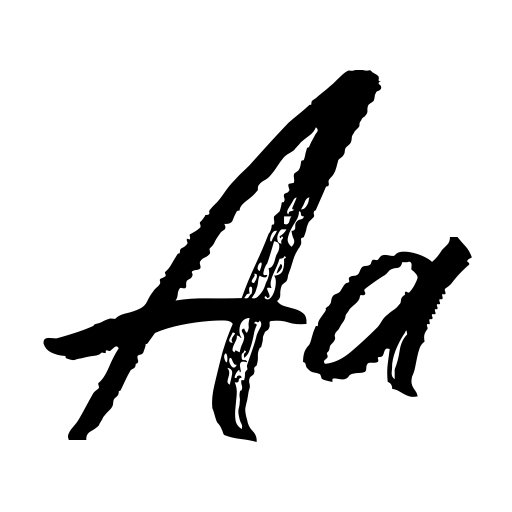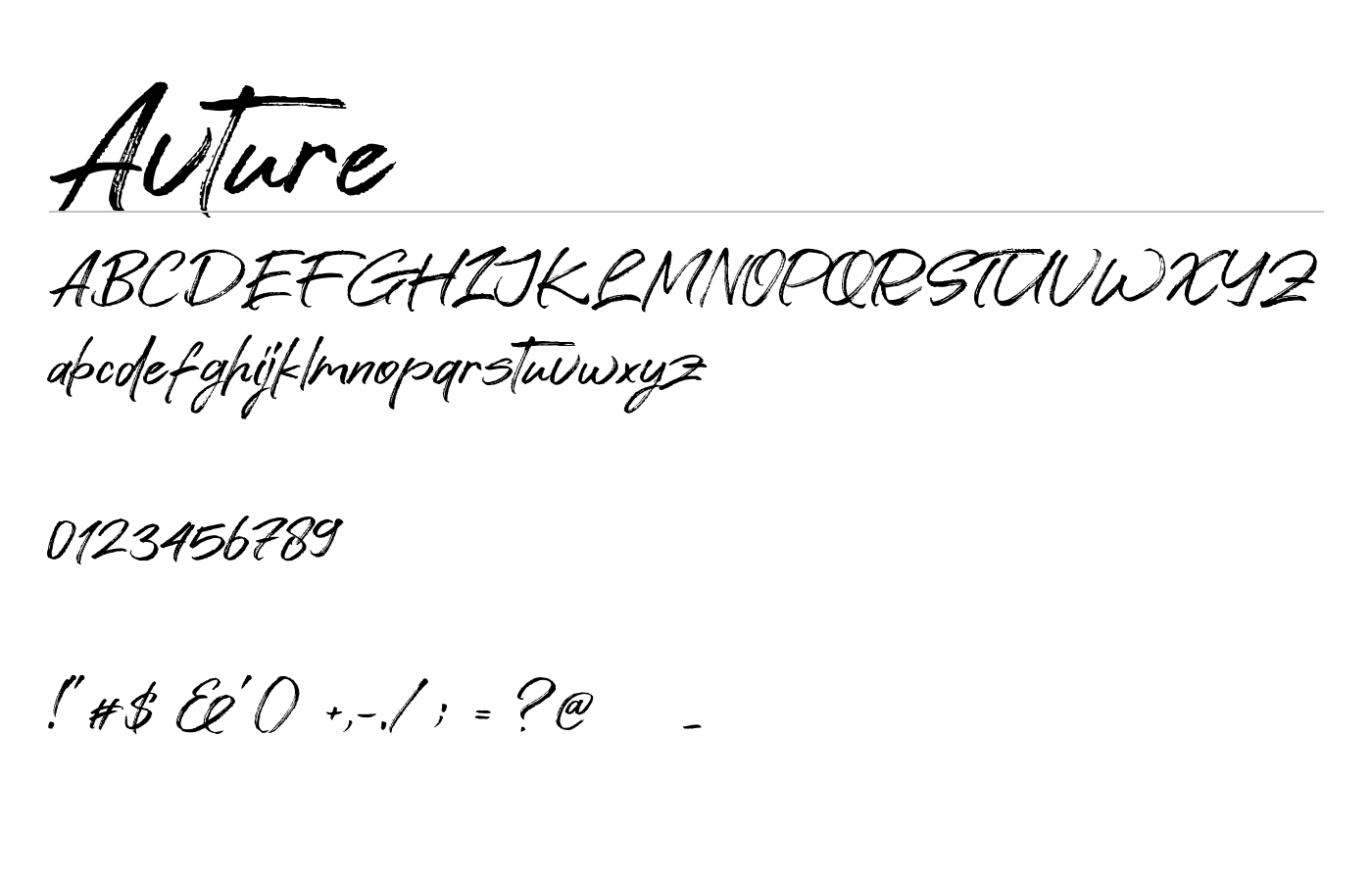
Avture is a dynamic and expressive script font with a hand-painted, brushstroke style that feels both artistic and lively. Its irregular, textured strokes and slightly condensed letterforms create a sense of energy and personality, making it ideal for creative branding, posters, and fashion-related designs where a bold, personal touch is desired. This font works well for headlines and display use, adding a fresh, modern flair to any project.
Avture Font
About Avture Font
| Font family | Avture Font |